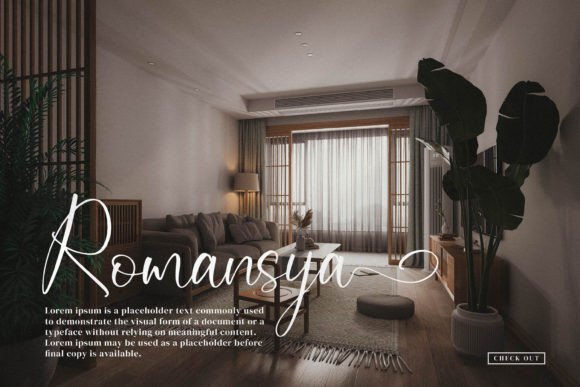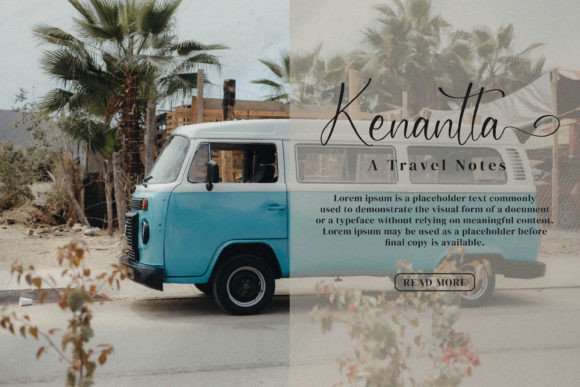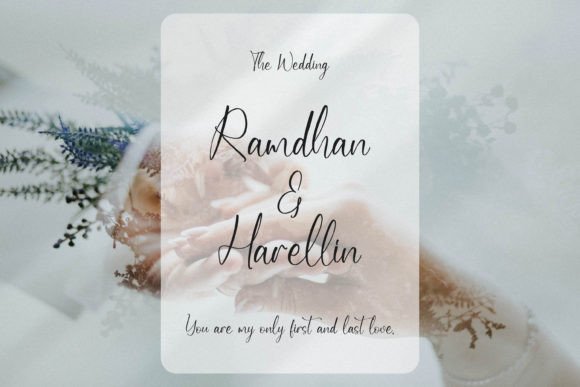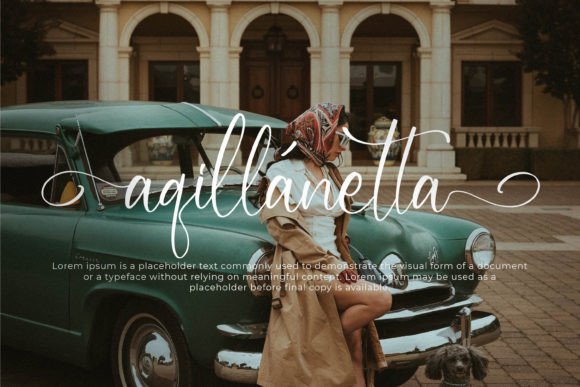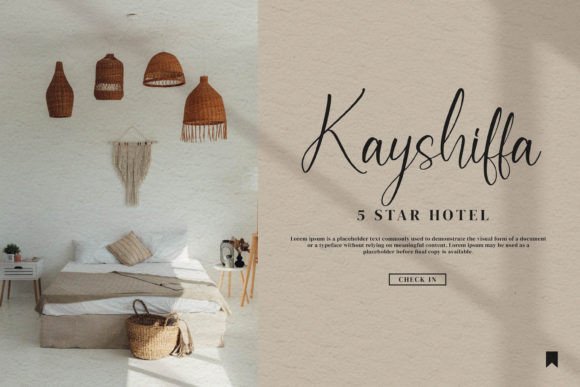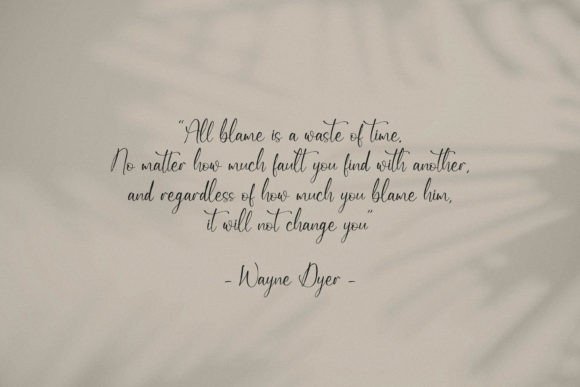
Introduction to Qireenatta Font
Qireenatta is an exquisite script font that exudes elegance and class.
Whether you’re using it for crafts, digital design, presentations, or making greeting cards, this font has the potential to become your favorite go-to font, no matter the occasion .
Key Features of Qireenatta Font
Why Choose Qireenatta Font?
Qireenatta Font offers exceptional quality and versatility, making it a valuable addition to your design toolkit. Whether you’re creating for personal projects or commercial use, Qireenatta Font delivers professional results.